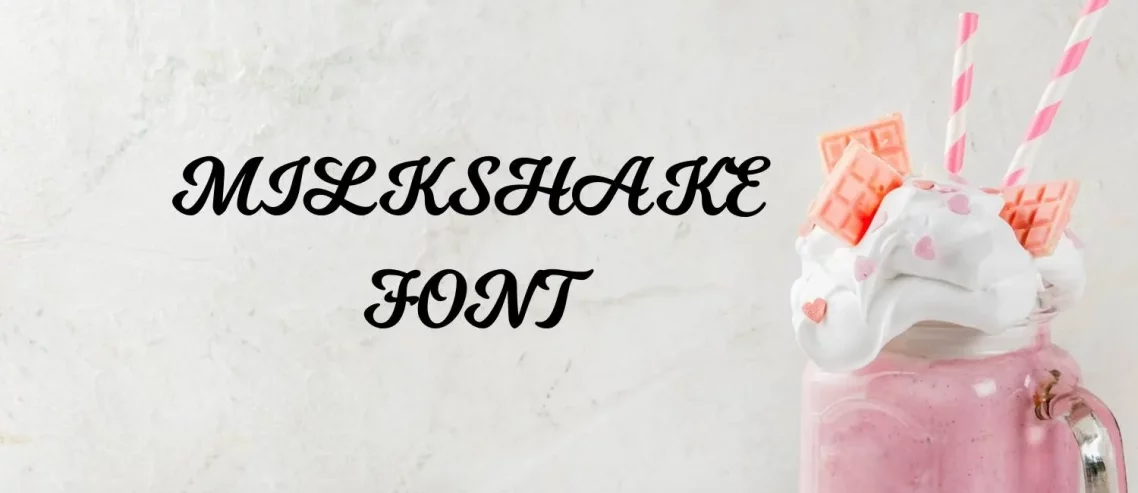
Milkshake font is a script handwritten font that has clean and medium bold texture. This amazing typeface was created by Laura Worthington. We’re speaking in regards to the milkshake font that looks like cottage font includes a variety of extras.
This font has 669 Glyphs, 10 ligatures, 87 swashes, and many characters. This designer design many fonts but this font is very famous by the users.
| Name | Milkshake Font |
| Designer | Laura Worthington |